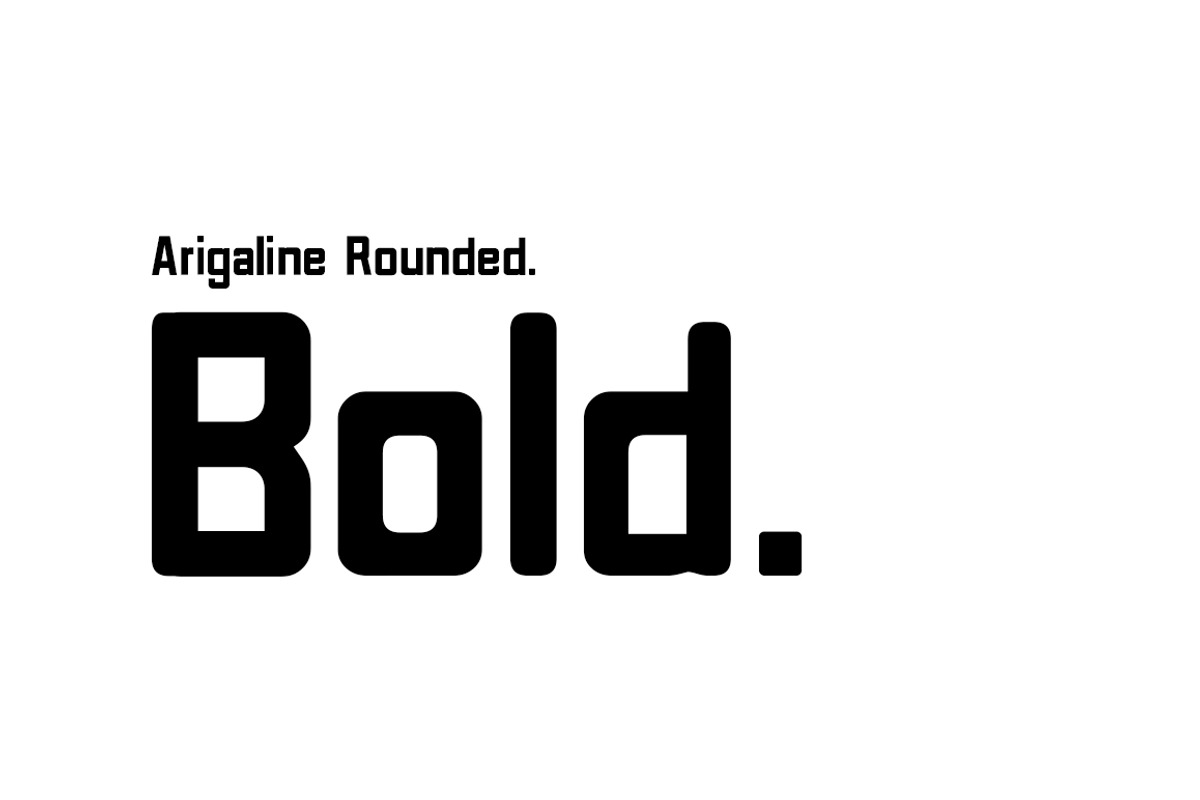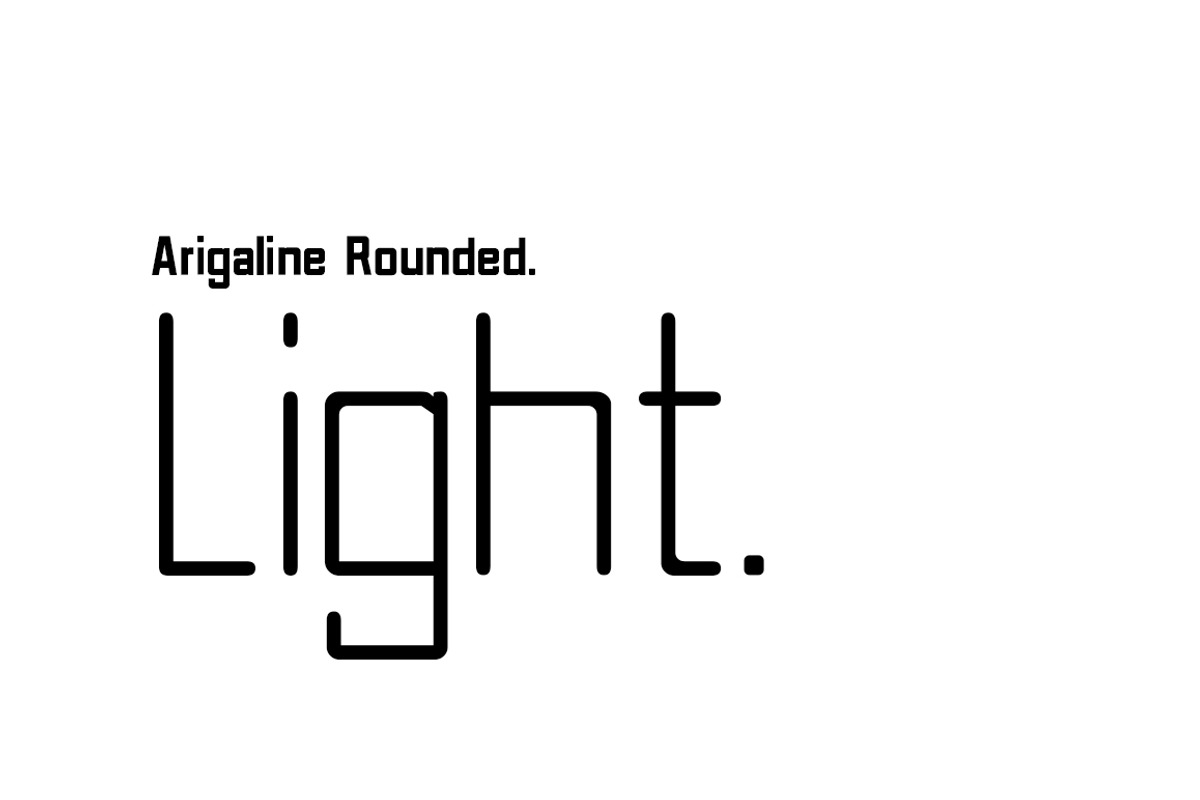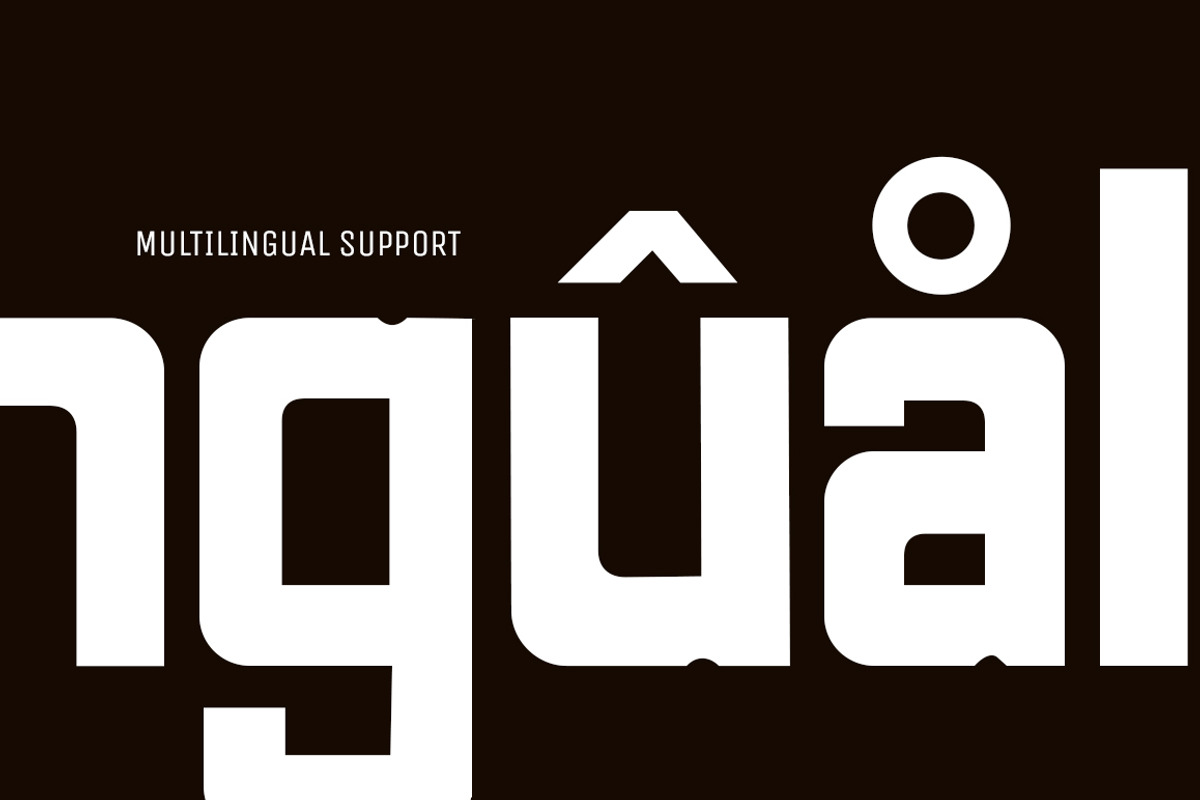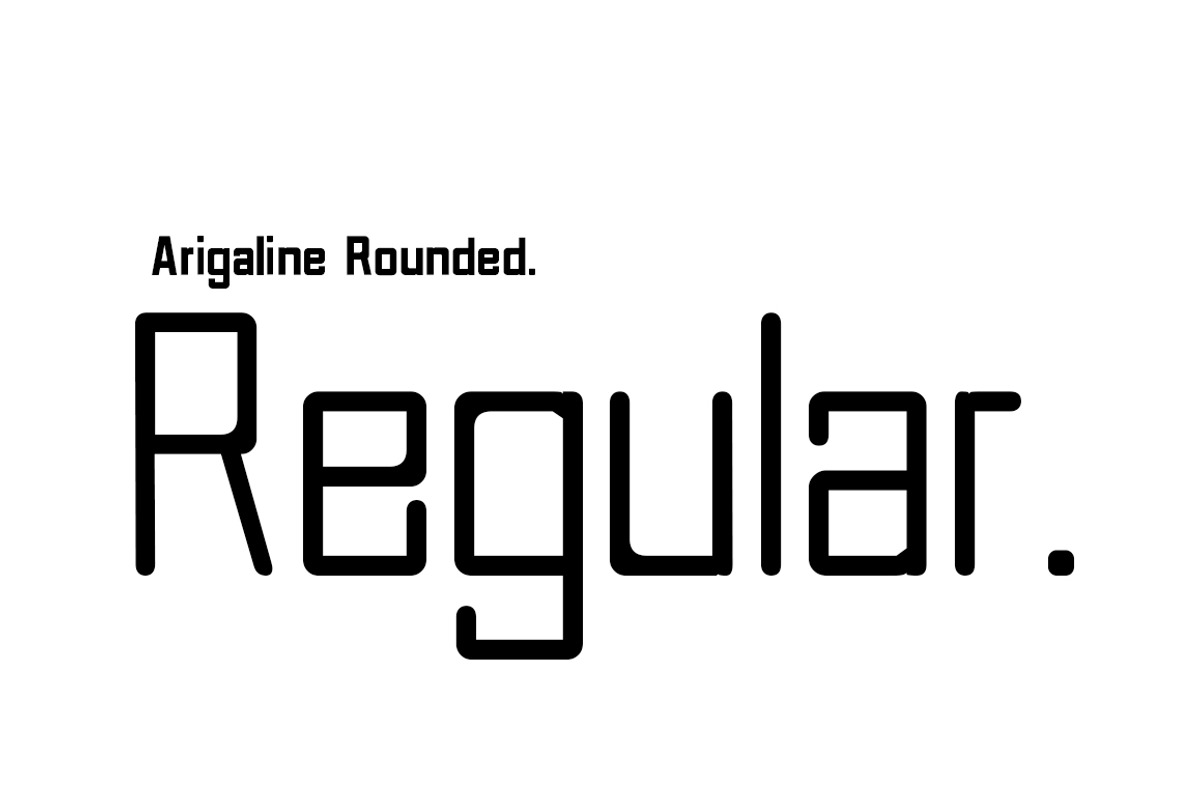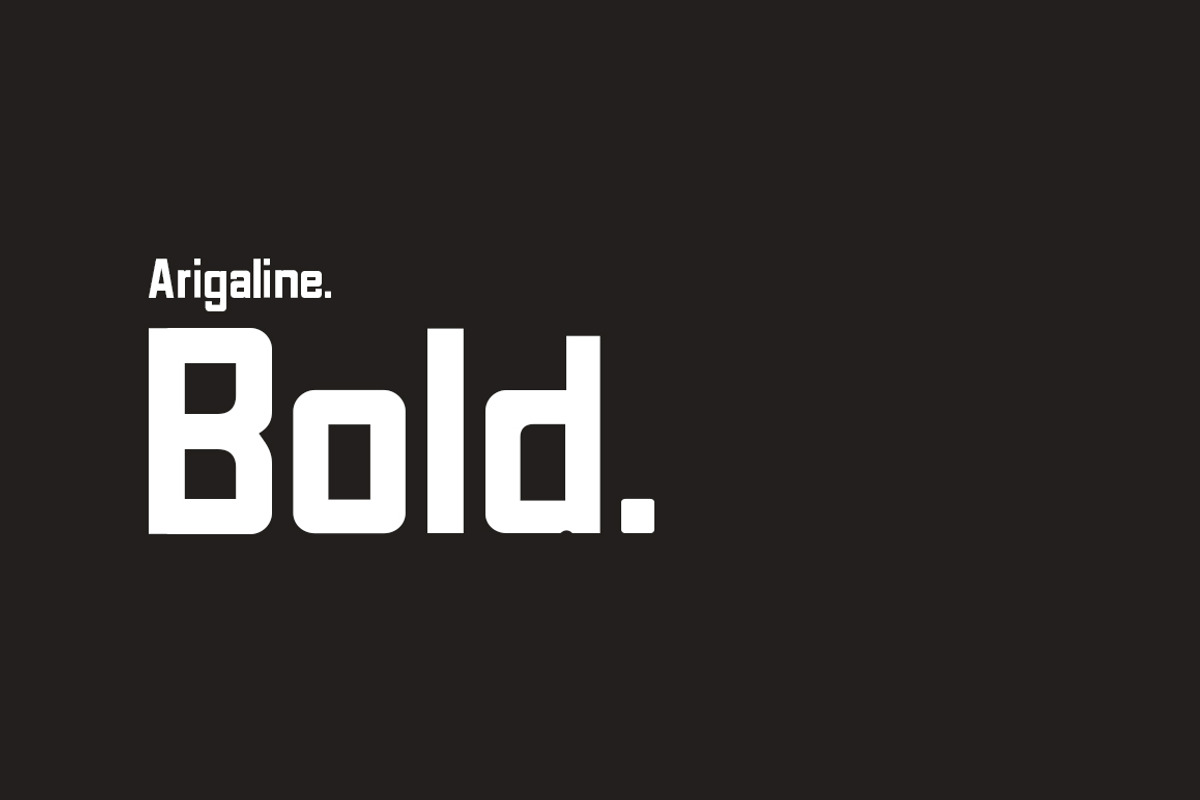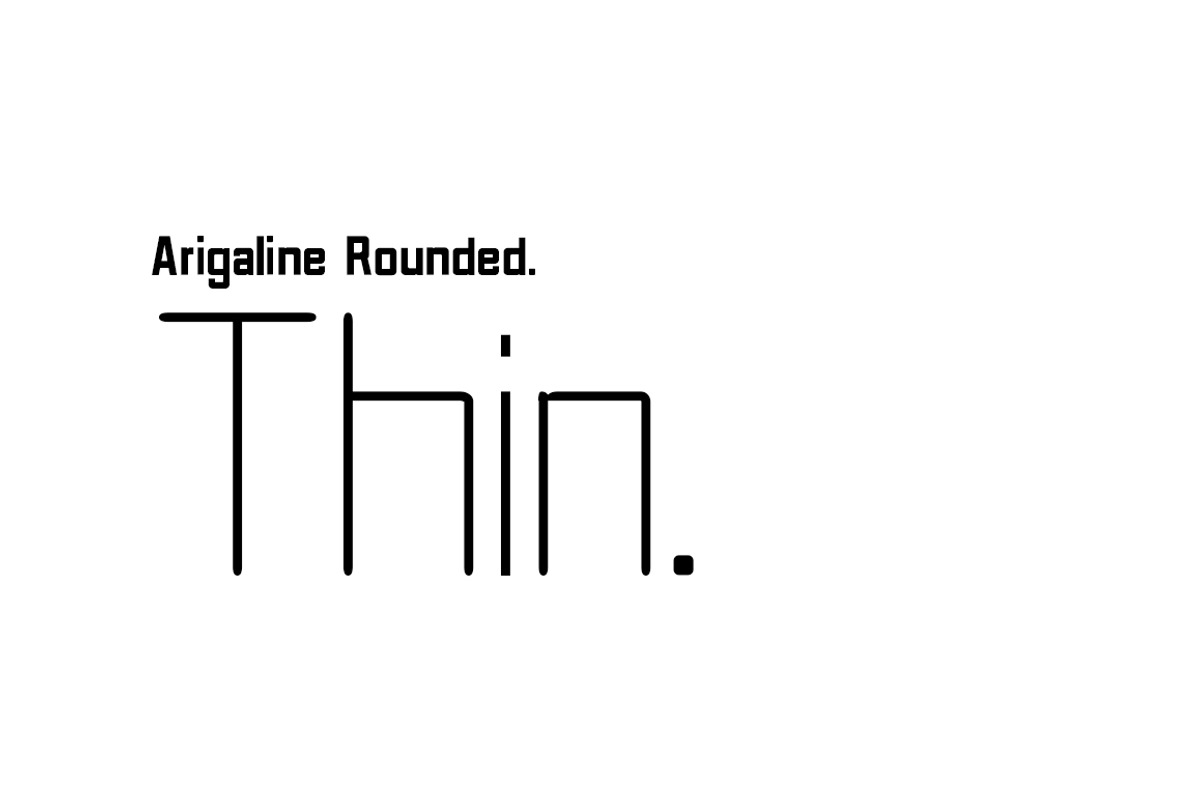
Arigaline Complete Family
The Arigaline Collection is group of professional fonts, created with sleek lines and geometric angles to ensure your designs are contemporary and prestigious. Get 20% OFF This Incredible Bundle For A Limited Time Only!
Included are 2 font families - Arigaline & Arigaline Rounded.
They have been designed specifically for apps, websites, branding, logos, packaging, copy, but is versatile and works with most other projects!
- Upper and Lower Case Alphabets
- Optimized Kerning for Aesthetic and Highly Readable Texts